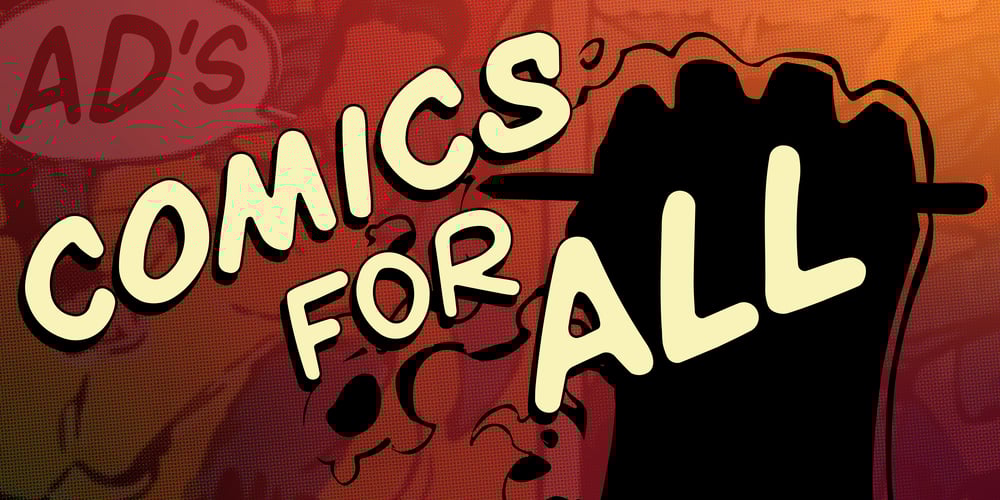
ADs Comics For All Font Family was designed by Amal Desai and published by Letters by Amal Desai. ADs Comics For All contains 3 styles and family package options. AD’s Comics For All has everything you need from a professional comic book font but with a light, accessible price tag. The key to digitally lettering comics is mimicking the style and natural imperfections of hand lettering. This font was handmade and programmed (with nifty tricks) keeping exactly that in mind. The functionality of hand lettered comic book fonts definitely doesn’t end at comic books. It can give an energetic and natural feel to just about any design. They can be especially handy when a bit of contrast is needed in a type-heavy layout.If you need an exceptional and affordable font to letter your indie comic book/manga/graphic novel, AD’s Comics For All is an excellent choice. If you’re a seasoned letterer, this versatile font is worth adding to your dialogue arsenal. If you’re a designer and have never looked twice at a comic book, you’ll find that comic book fonts are a category of their own and a useful tool in your utility belt.